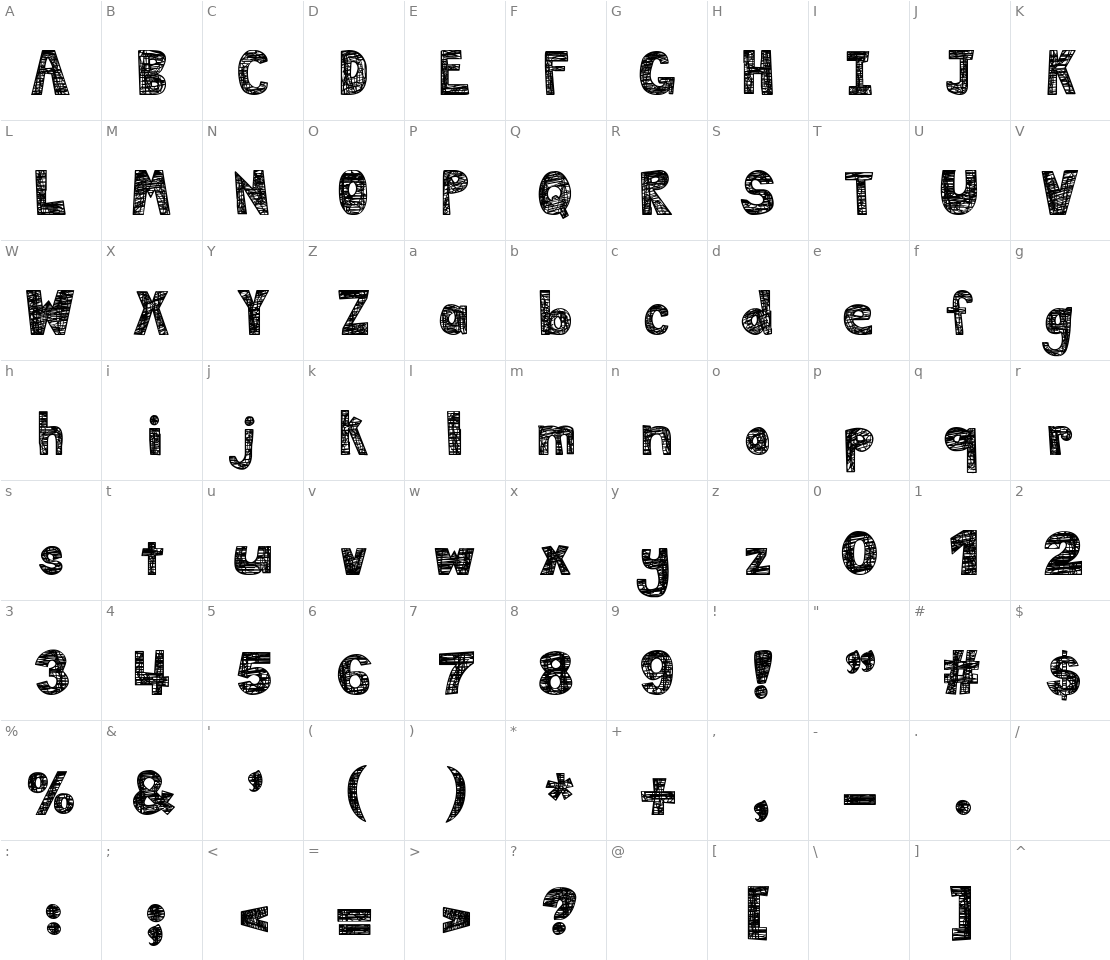
DJB Mess In My Head
DJB Mess In My Head is a scribbled, sketchy display face from DJB Fonts that looks like someone doodled each letter with a restless pen, layering strokes until the shapes barely hold together. The rough, textured lines give it a fidgety, stream-of-consciousness energy that works for headlines, posters, and creative projects where polish is the last thing you want.